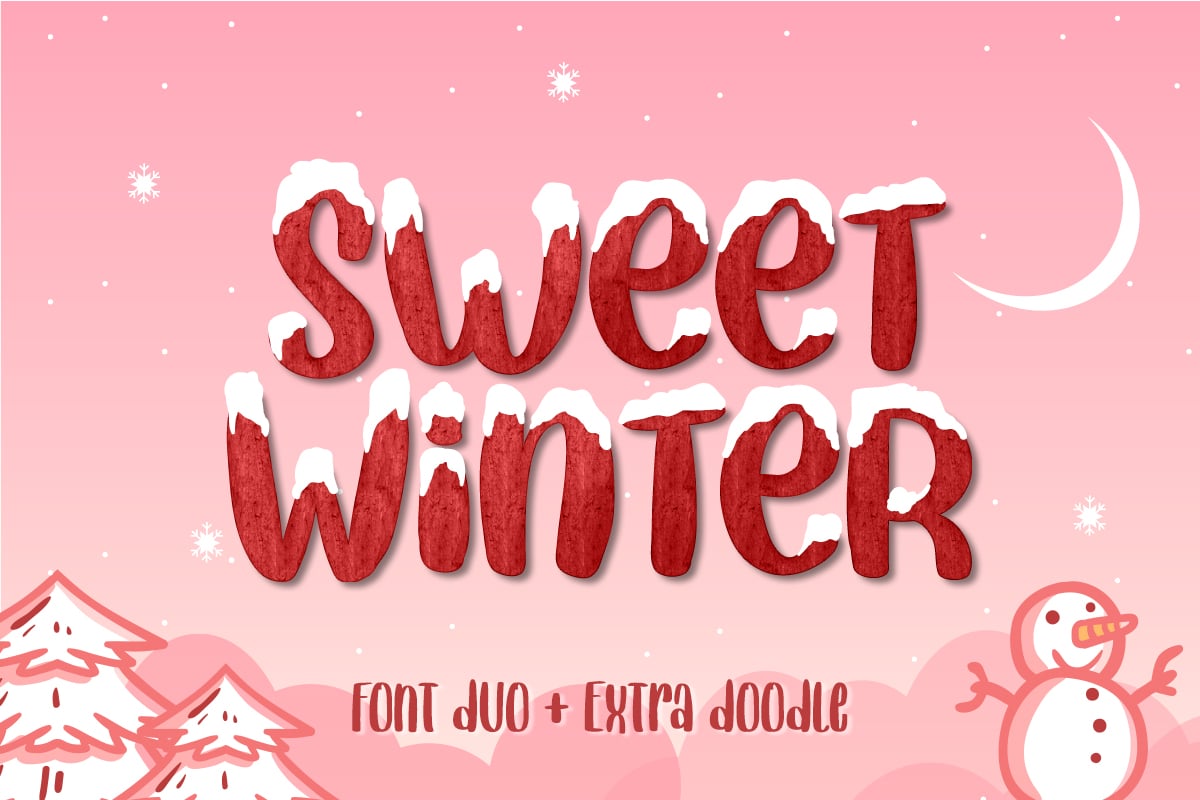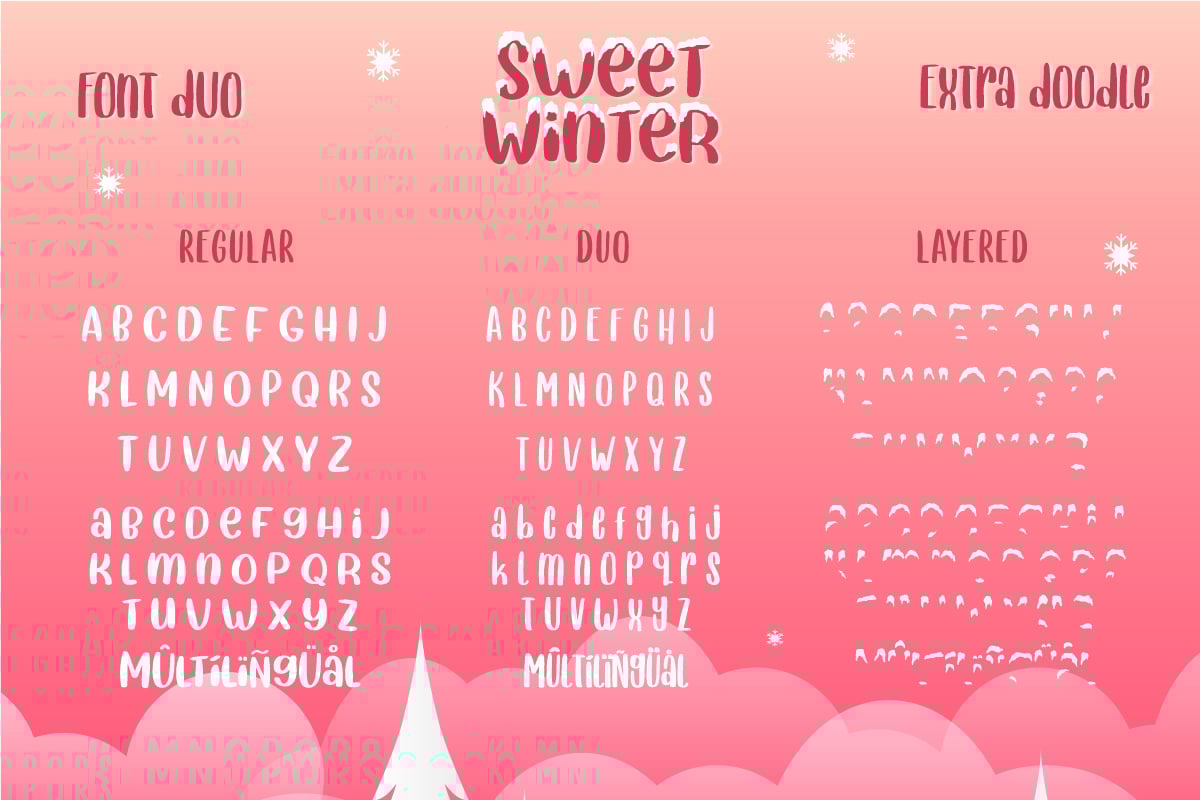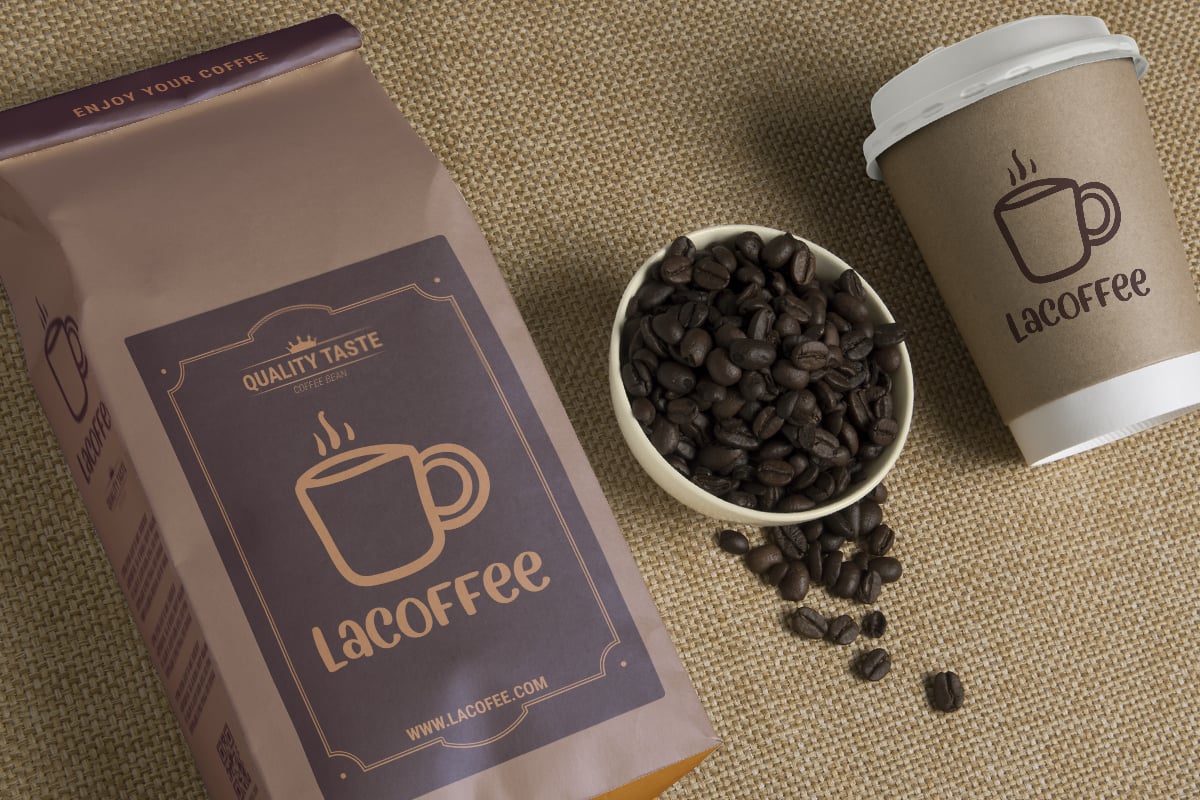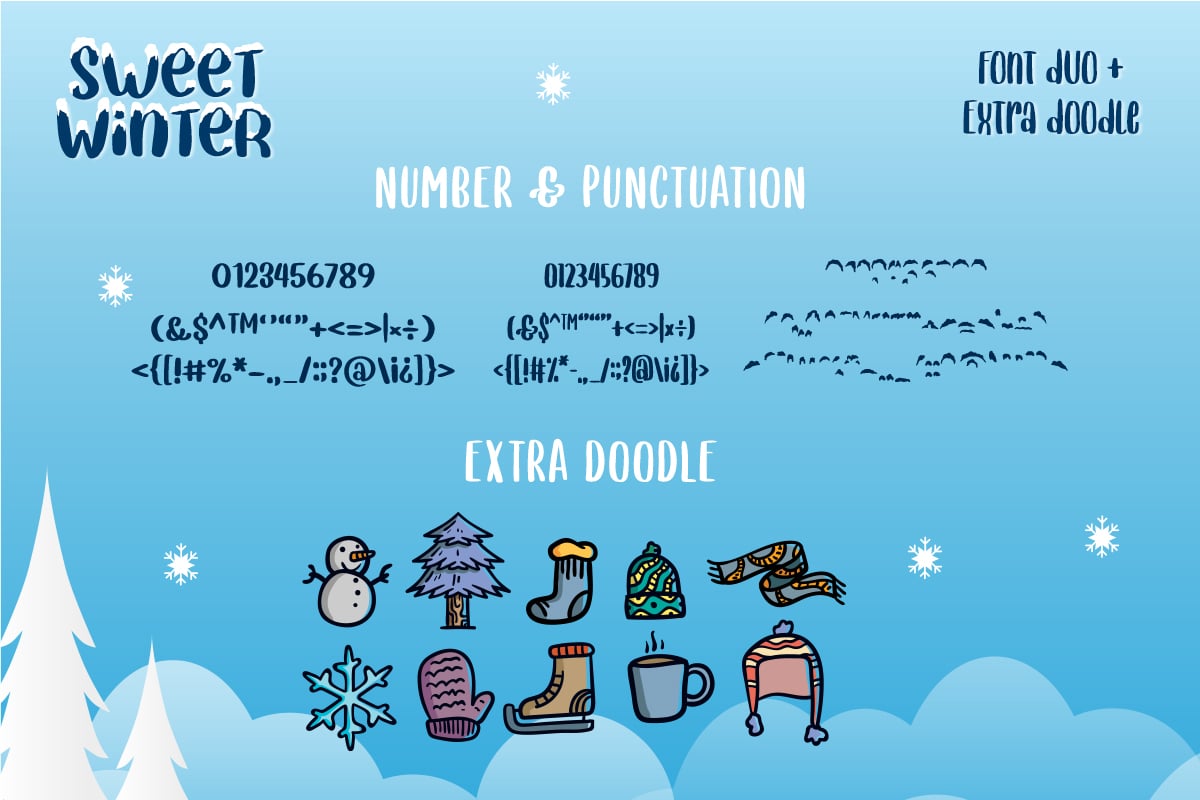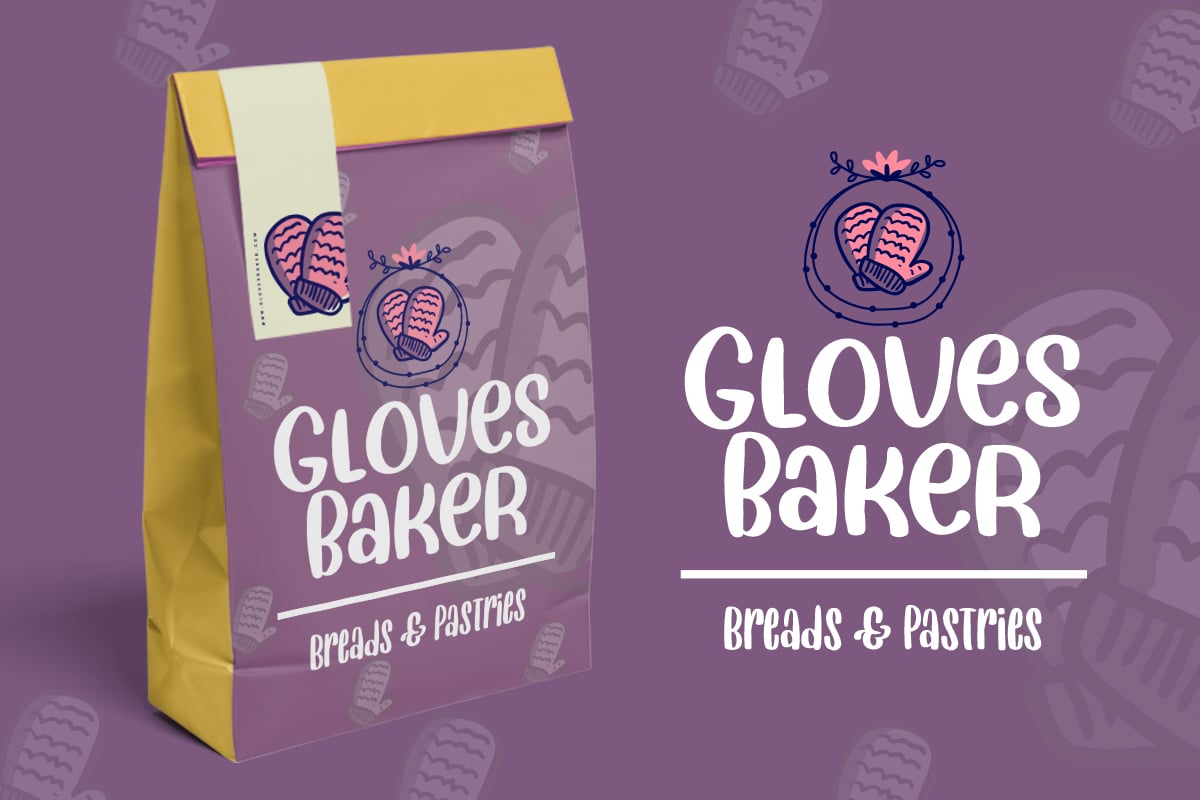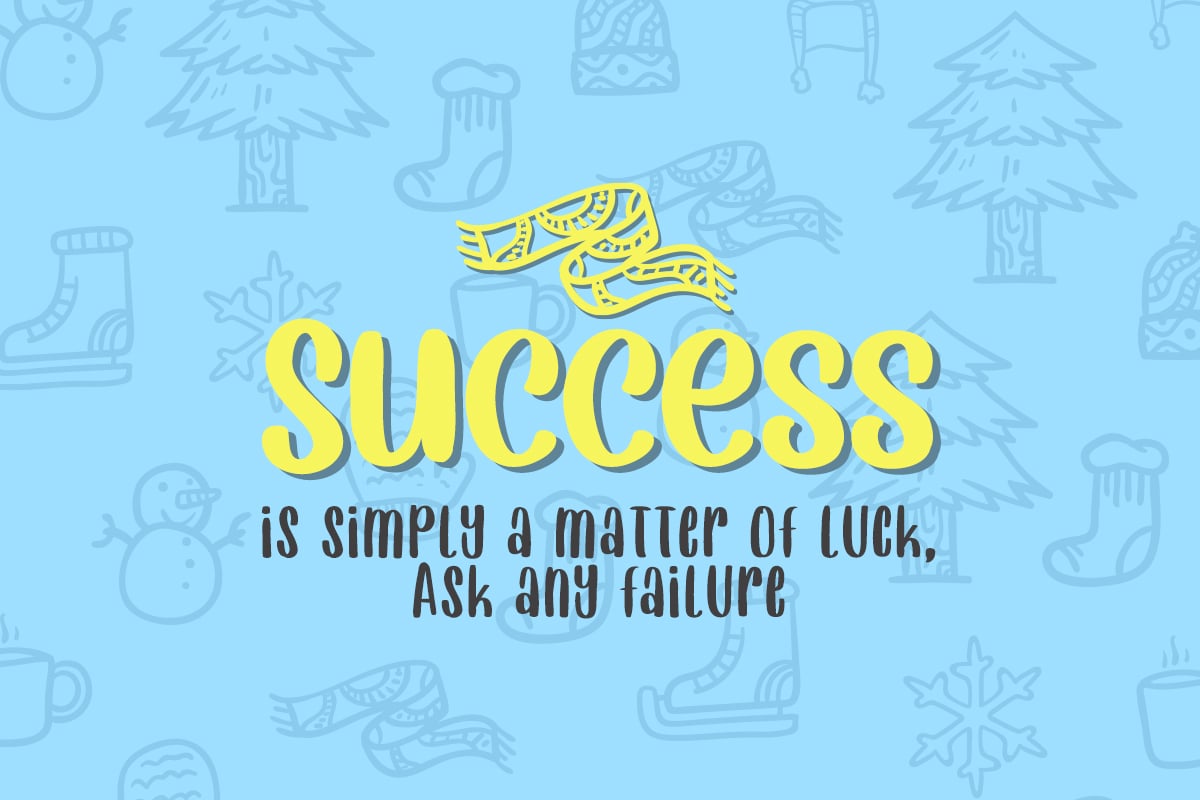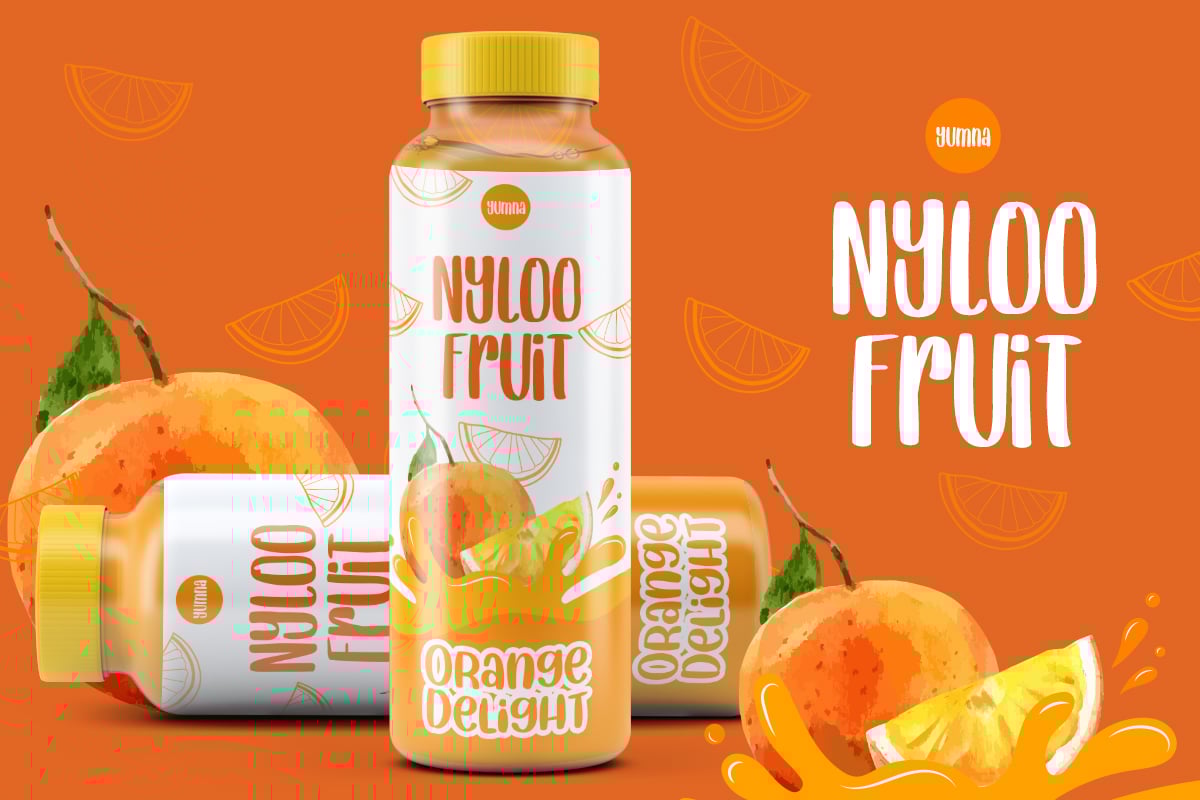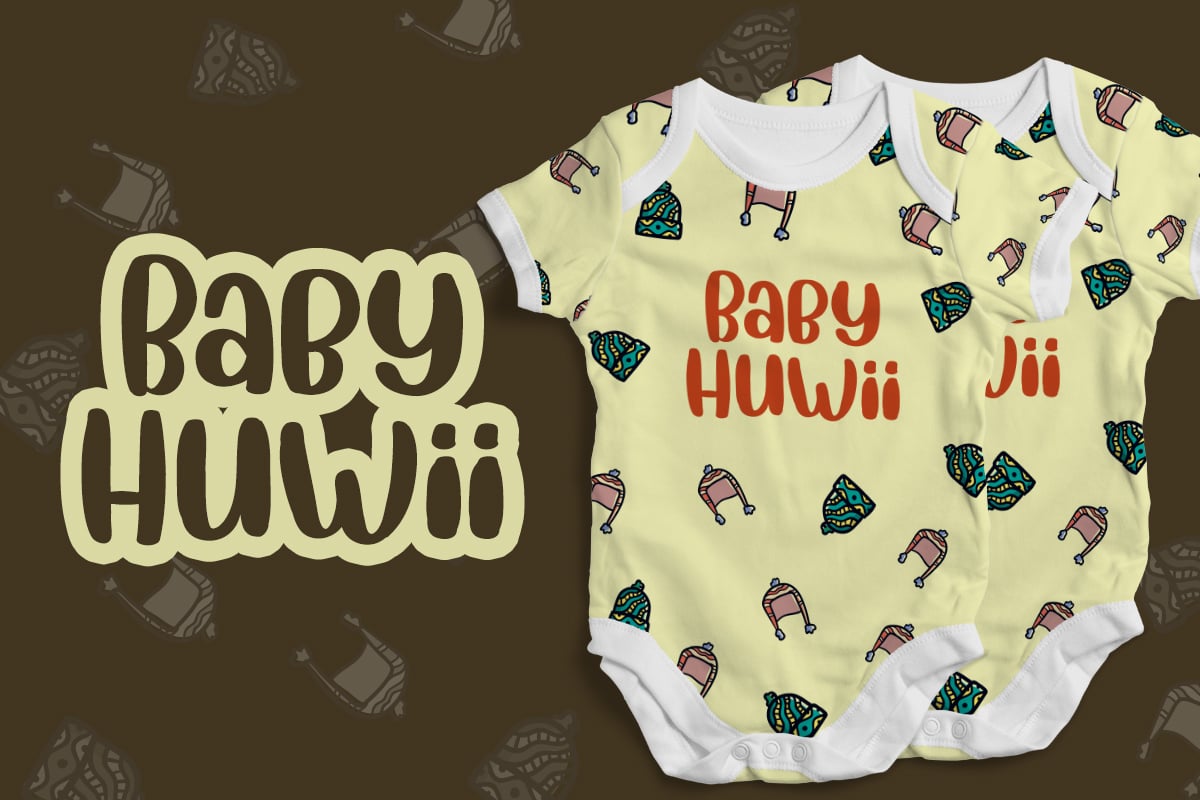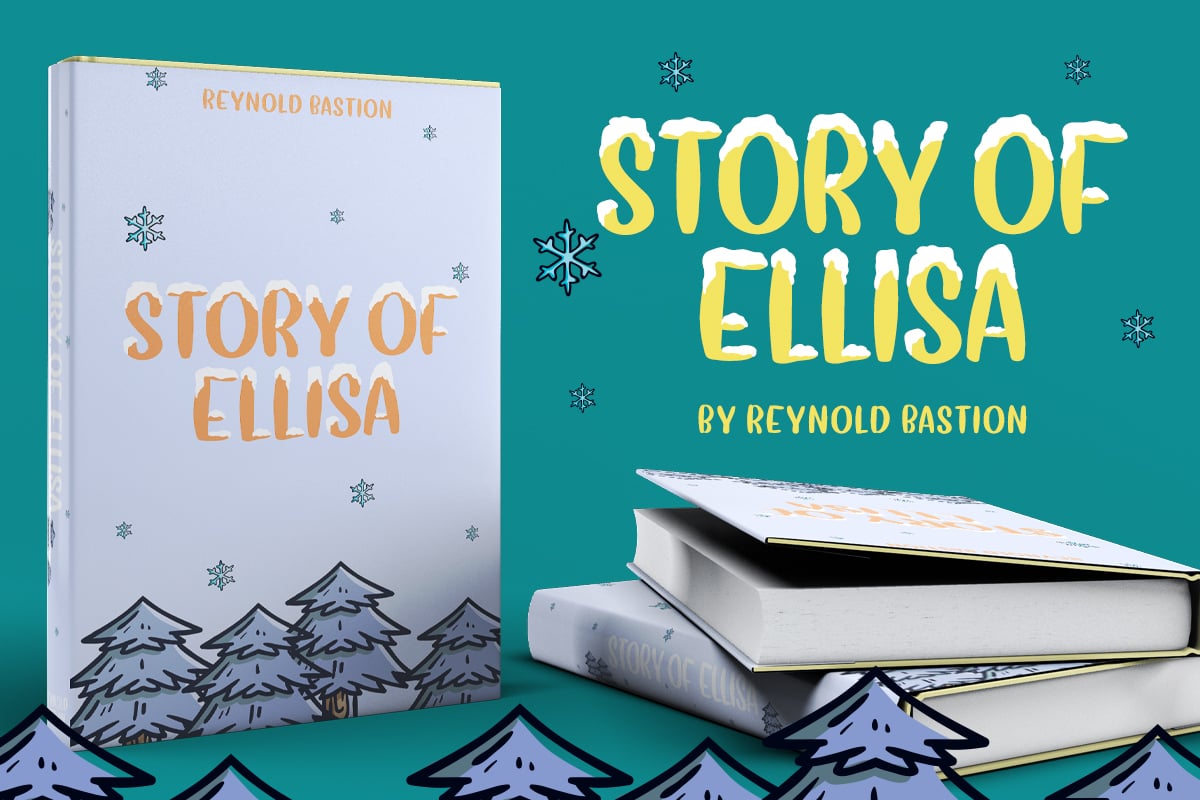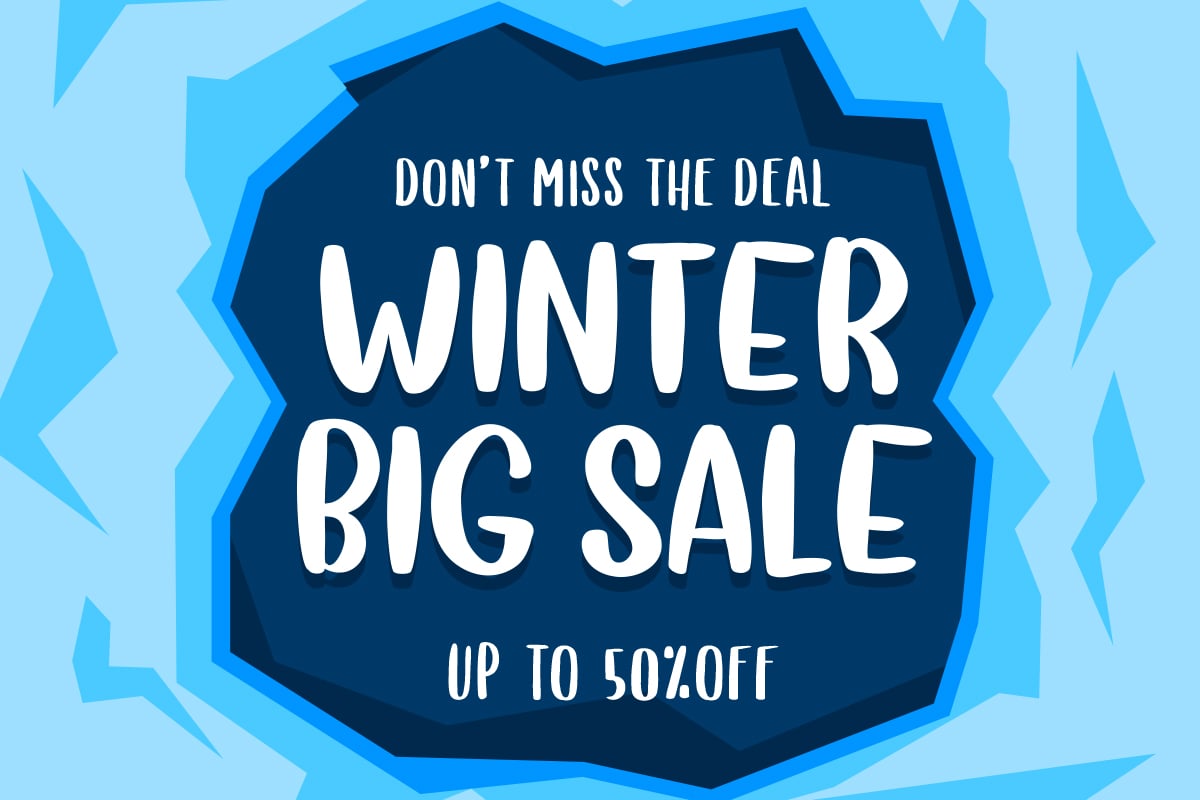
Sweet Winter – Layered Font Duo
Sweet Winter is a beautiful Display font. The family consists of 3 font. This font is suitable for any design like branding, quotes, t-shirt printing and etc.
- Sweet Winter Regular
- Sweet Winter Snow Layered
- Sweet Winter Duo
- Accents (Multilingual characters)
- Numerals and Punctuations (OpenType Standard)
- Bonus 10 Beautiful doodles